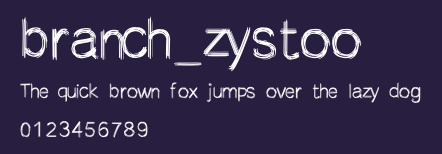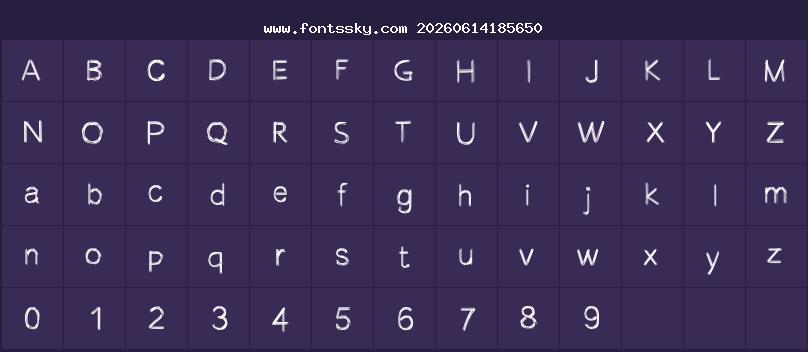
• Designer: zystoo
About branch_zystoo.otf
branch_zystoo.otf is a modern, elegant sans-serif font designed for ultimate readability and visual harmony. Perfect for branding, headlines, web design, and print materials.